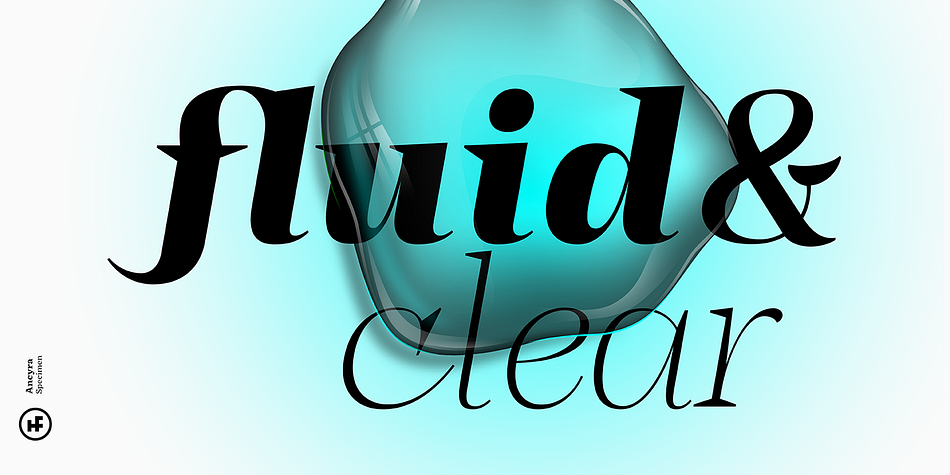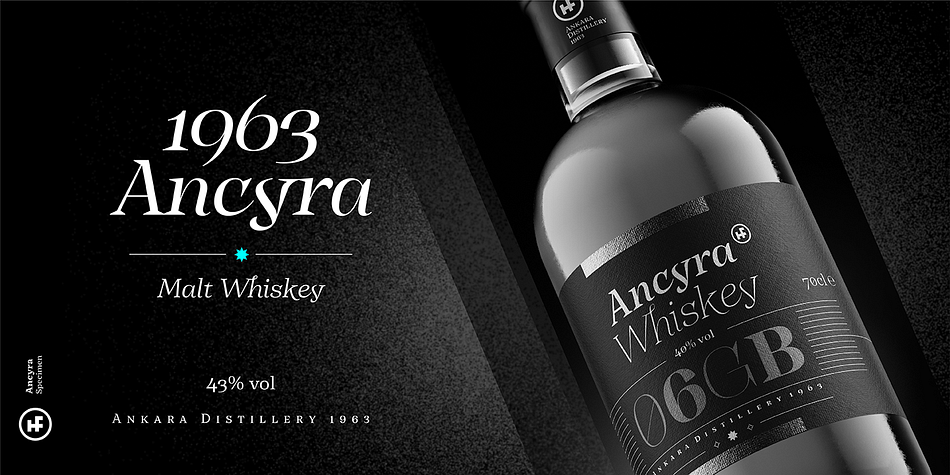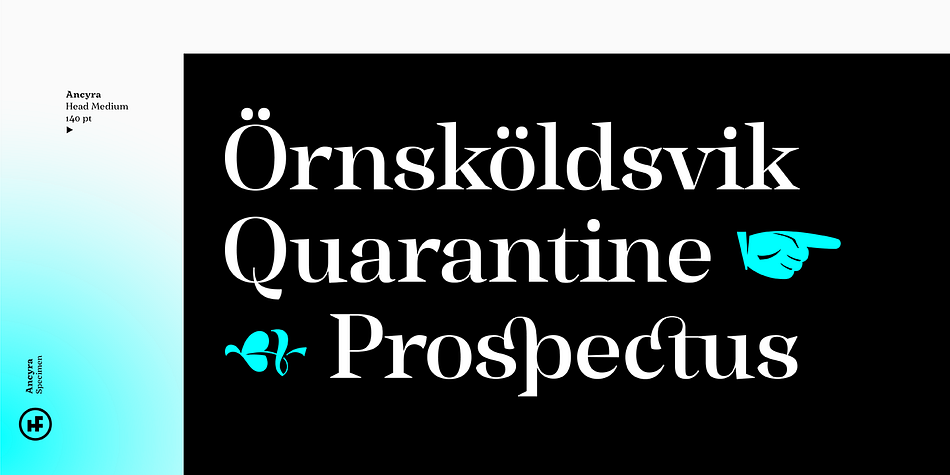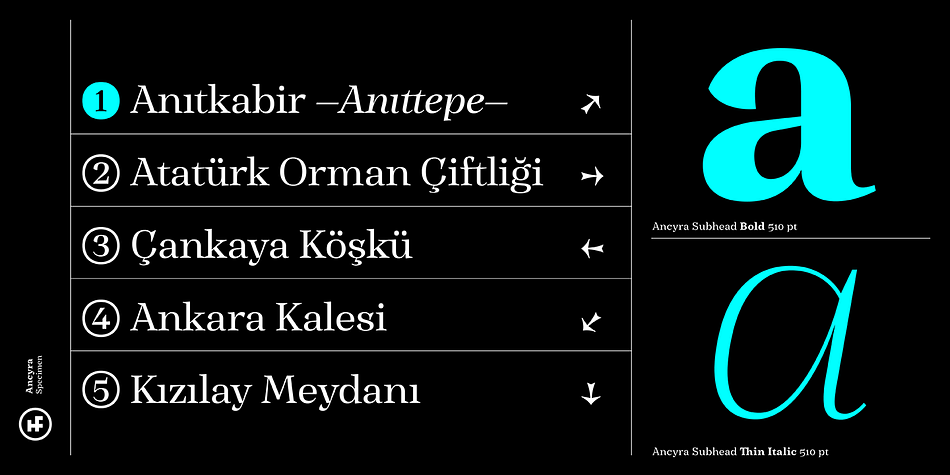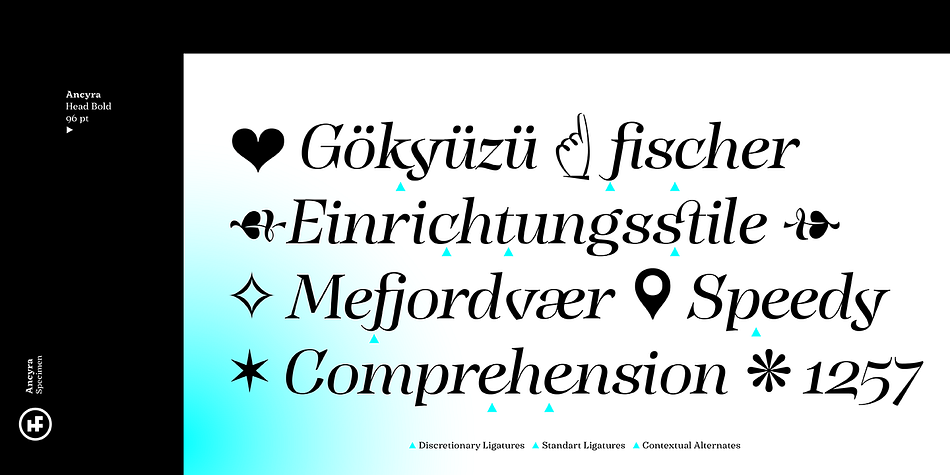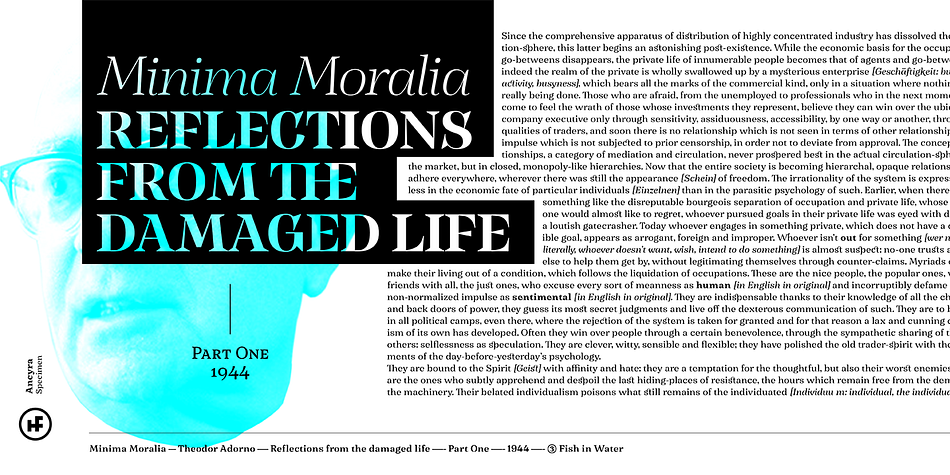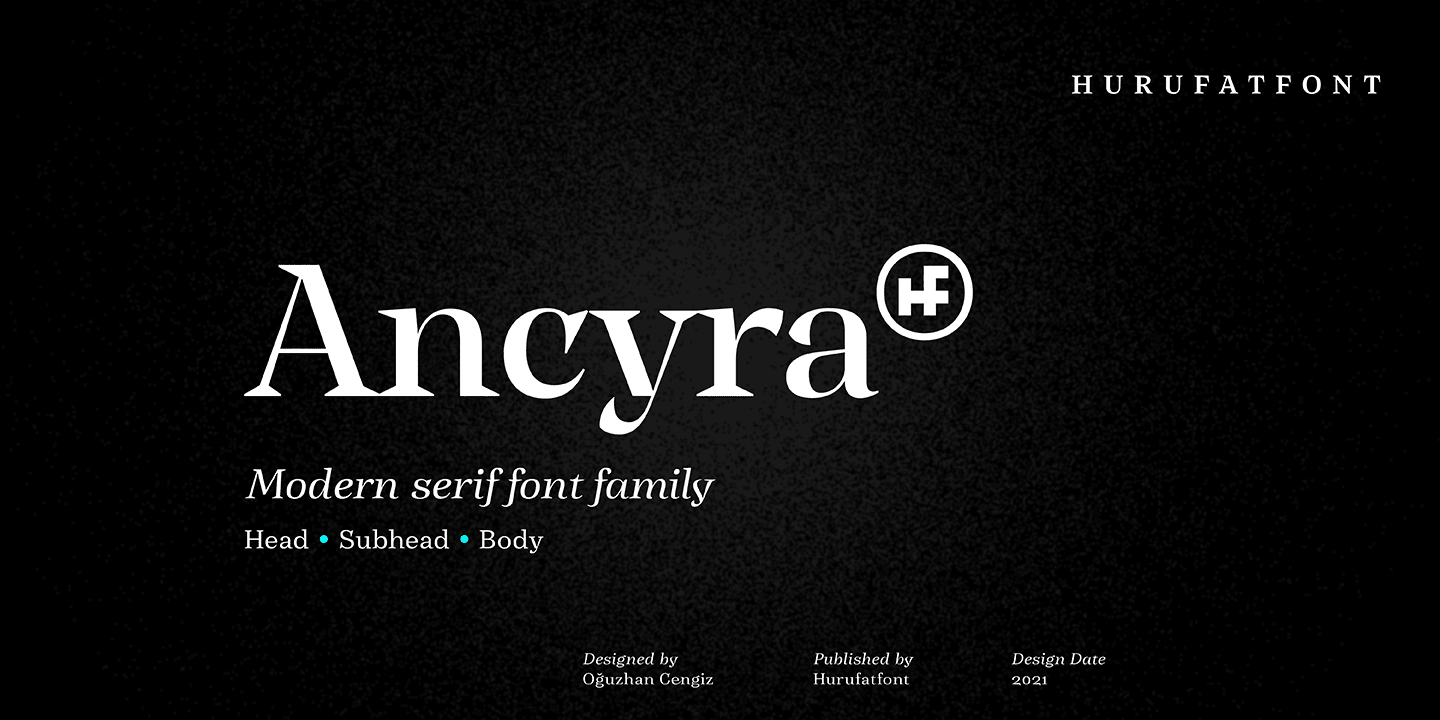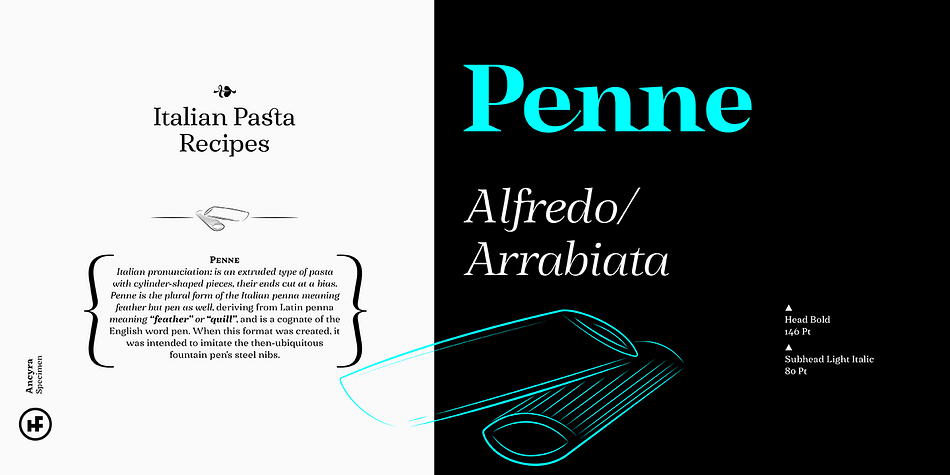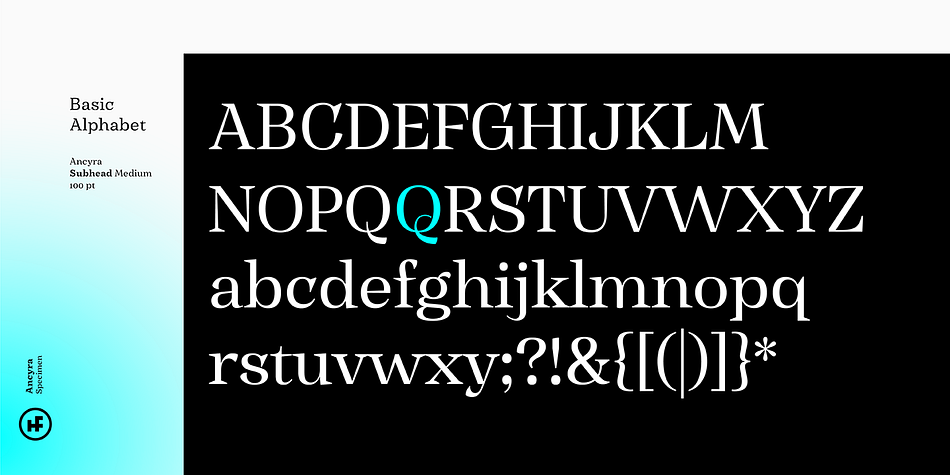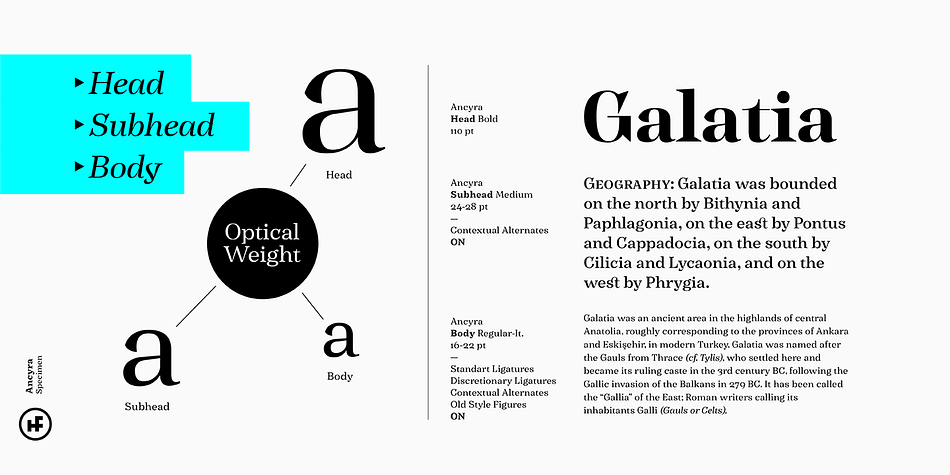
Designed by Oğuzhan Cengiz, Ancyra is a display serif and serif font family. This typeface has forty-eight styles and was published by Hurufatfont Type Foundry.
Ancyra is a transitional serif family designed with current usage areas and requirements in mind. Efforts were made to provide the most effective harmony within each character and with the characters they are associated with.
In order to customize the usage areas and provide an impressive and fluent reading experience It has been designed in three different optical weights as title, subtitle and body text.
Sharp and soft terminals used together (such as v, w, y, s, c, k) have an extraordinary effect, especially in italic styles. Contextual alternatives are designed to be compatible with the letters after the letters “c, e, t” in the text and create a cursive effect.
Ancyra is perfect for use in newspapers, magazines, e-books, packaging design and fashion industry, branding of quality products and services. Ancyra has a versatile usage area with its optical weights.